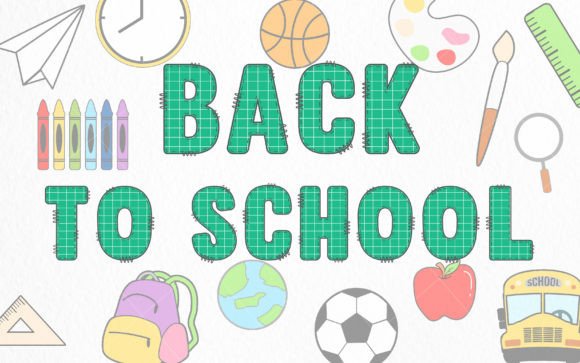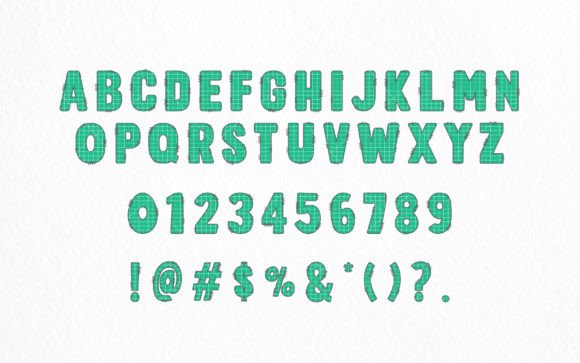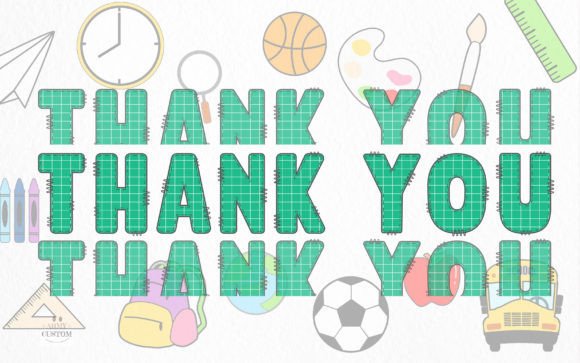
Unlock Creative Possibilities with Cutting Mat Army Font
Are you looking for a font that can add a unique touch to your creative projects? Look no further than the Cutting Mat Army Font! This cool and useful color font is perfect for making an impact in various design applications. Whether you’re working on arts and crafts, scrapbooking, stationery, cards, party invitations, blog banners, backgrounds, wall art, or products, this font is sure to elevate your designs.
What Makes Cutting Mat Army Font Special?
The Cutting Mat Army Font stands out due to its versatility and compatibility with various design tools and machines. The black version of this font is compatible with Cricut Design Space and other cutting machines, making it an excellent choice for crafters who use these tools. On the other hand, the color version of the font, while not compatible with Cricut, works seamlessly with design programs like PhotoShop, Illustrator, Silhouette, and Inkscape.
Using Cutting Mat Army Font in Your Projects
The Cutting Mat Army Font can be used in a multitude of projects. Here are some ideas to get you started:
- Arts and Crafts: Add a personal touch to your handmade crafts with this unique font. It’s perfect for creating custom titles, labels, or messages.
- Scrapbooking: Make your scrapbook pages stand out with this eye-catching font. Use it for titles, captions, or journaling.
- Stationery and Cards: Elevate your stationery and card designs with a professional yet creative look. It’s ideal for making custom greetings, invitations, or thank you cards.
- Party Invitations: Create memorable party invitations that set the tone for your event. This font is sure to impress your guests!
- Blog Banners and Backgrounds: Enhance your blog’s visual appeal with custom banners and backgrounds featuring the Cutting Mat Army Font.
- Wall Art: Design stunning wall art pieces that make a statement. This font can be used for quotes, poems, or any text you want to highlight.
- Products: If you’re into product design, this font can help you create unique and attractive text designs for your merchandise.
Tips for Getting the Most Out of Cutting Mat Army Font
To maximize the potential of the Cutting Mat Army Font, consider the following tips:
- Experiment with Colors: Since the color version of the font works with design programs like PhotoShop and Illustrator, don’t hesitate to experiment with different colors and gradients.
- Mix and Match: Combine the Cutting Mat Army Font with other fonts for a unique look. This can add depth and interest to your designs.
- Pay Attention to Size and Placement: The impact of your text can greatly depend on its size and placement within your design. Play around with these elements to achieve the desired effect.
The Cutting Mat Army Font is a versatile and impactful addition to any designer’s toolkit. Its compatibility with a range of design programs and cutting machines makes it an ideal choice for various creative projects. Whether you’re a professional designer or a hobbyist, this font can help you create stunning and unique designs. So, why wait? Add the Cutting Mat Army Font to your collection today and unlock a world of creative possibilities!